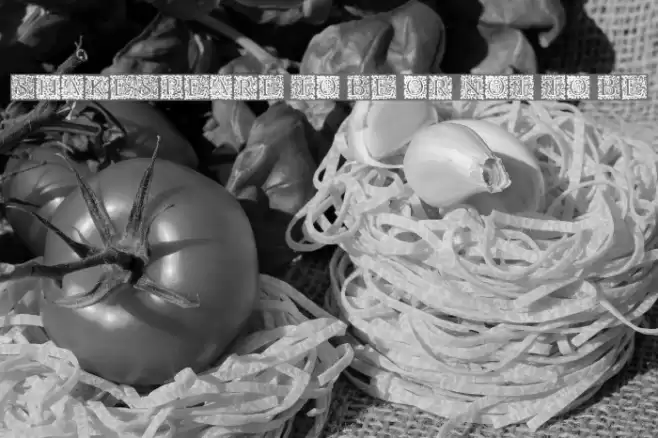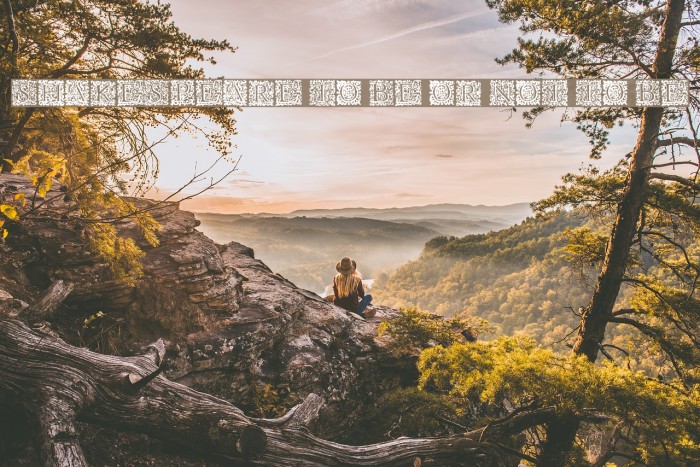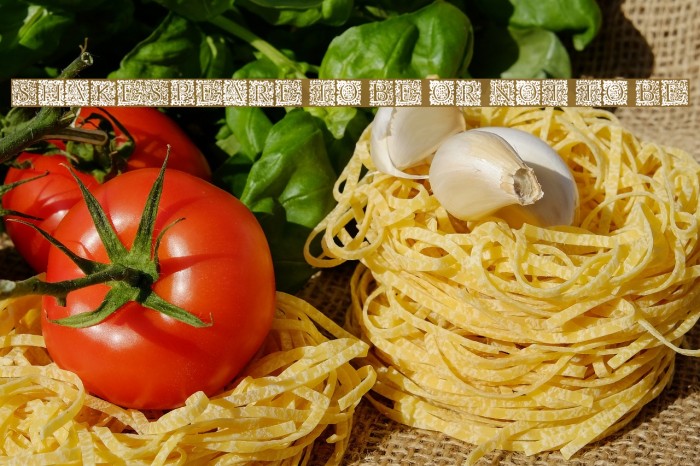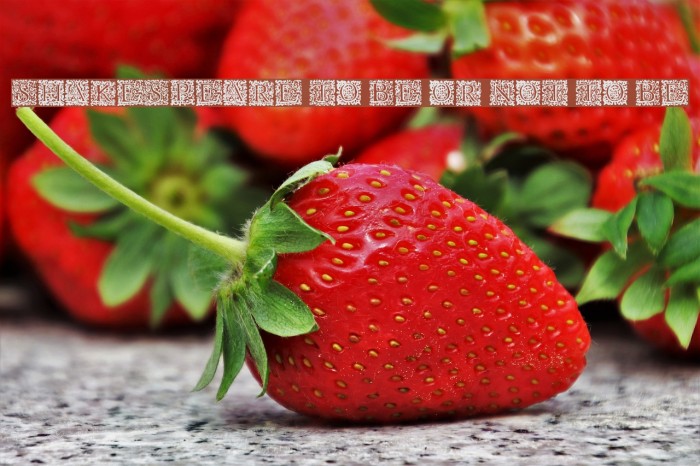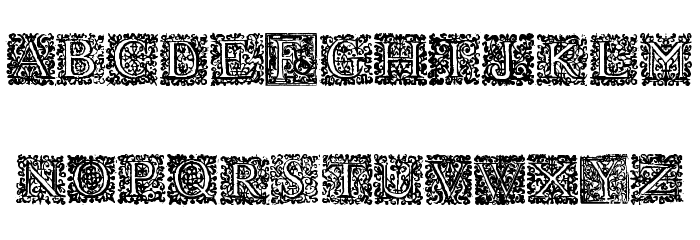
Shakespeare To Be Or Not To Be Font
Shakespeare To Be Or Not To Be Description
This font features an ornate and decorative style, characterized by intricate floral and vine-like embellishments surrounding each letter. The uppercase letters are highly detailed, with each character enclosed in a square frame that enhances its elaborate design. The font exudes a vintage and classical feel, reminiscent of historical manuscripts or decorative book covers. The intricate patterns make it suitable for projects that require a touch of elegance and sophistication, such as invitations, certificates, or artistic posters. The overall appearance is bold and eye-catching, making it ideal for display purposes.
An ornate, decorative font with intricate floral embellishments and a vintage feel.
- Proposed Projects: Ideal for wedding invitations, historical-themed posters, decorative book covers, and artistic projects requiring a vintage touch.
- Overall Style: Vintage, Decorative
- Use Case: Headlines, Logos, Decorative text